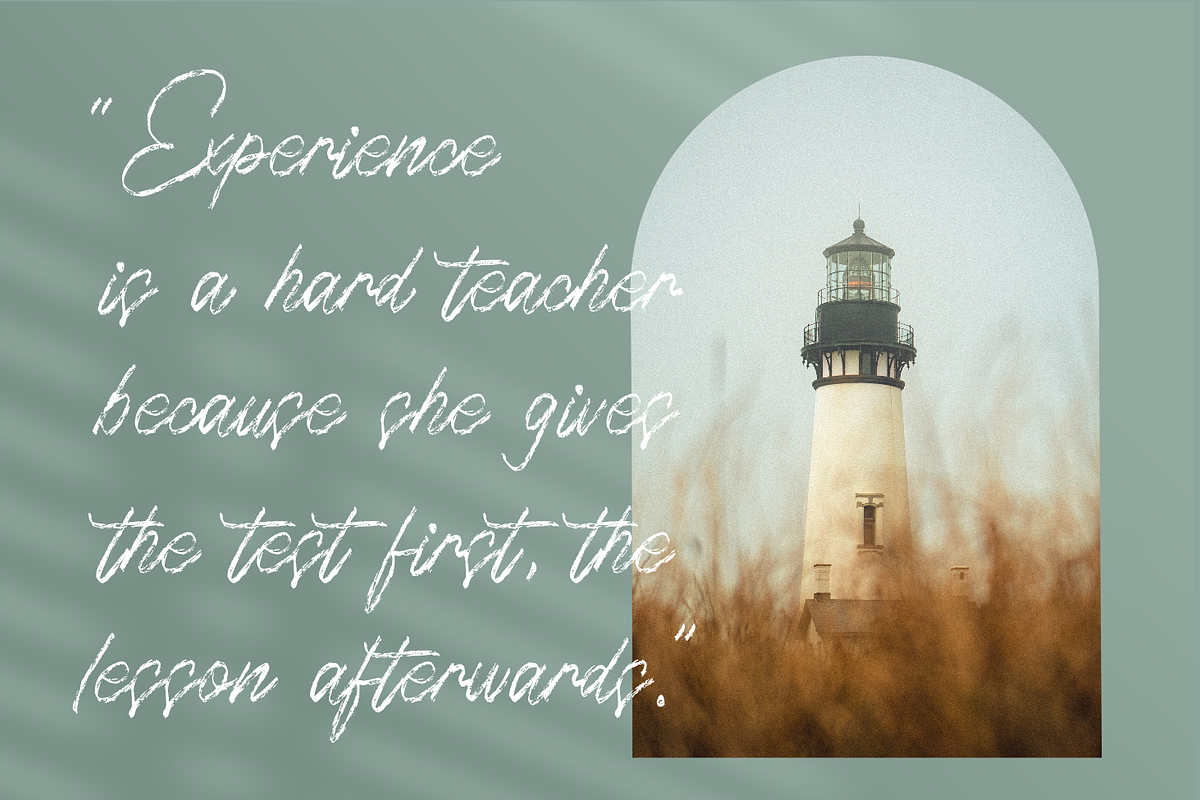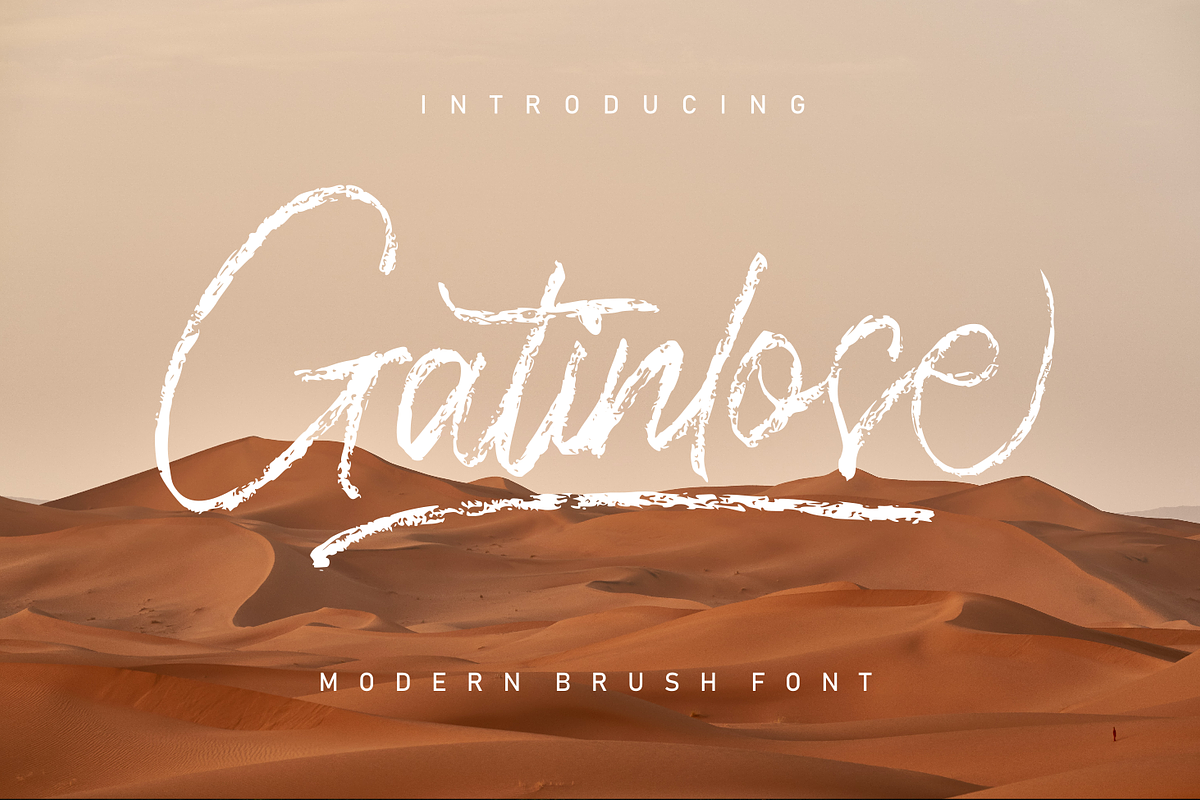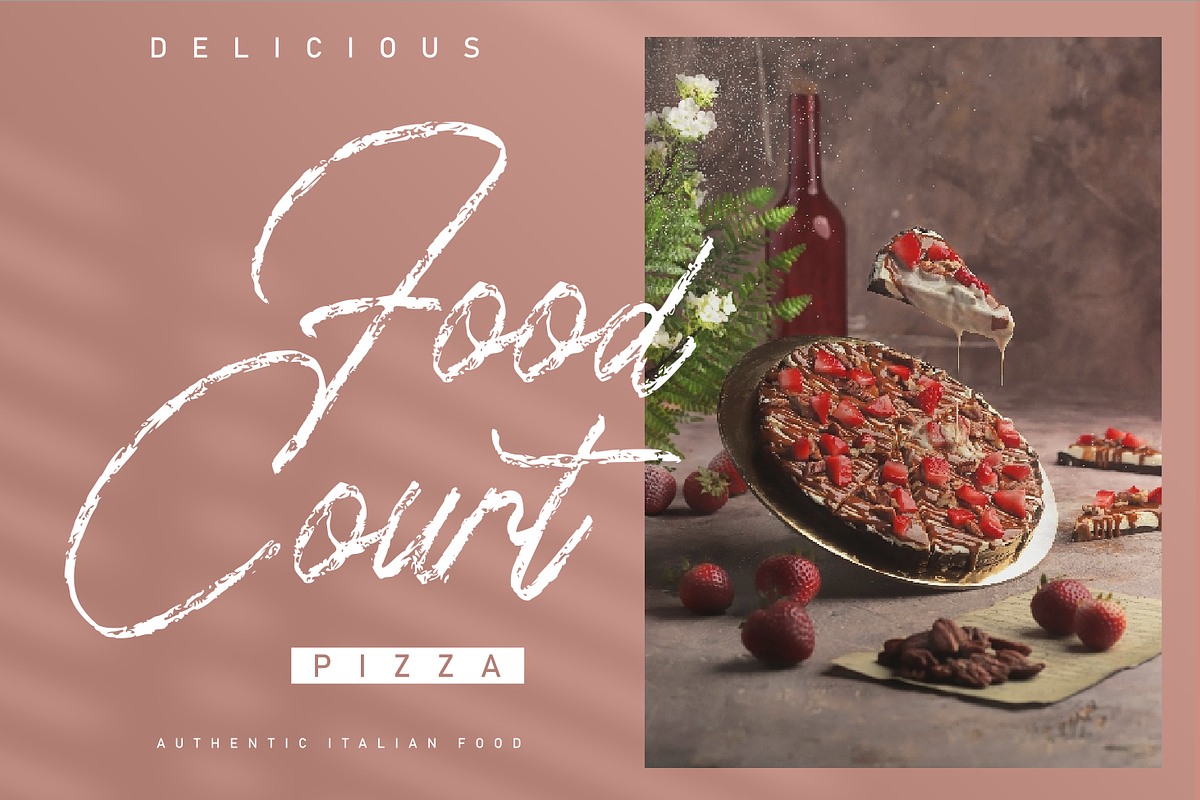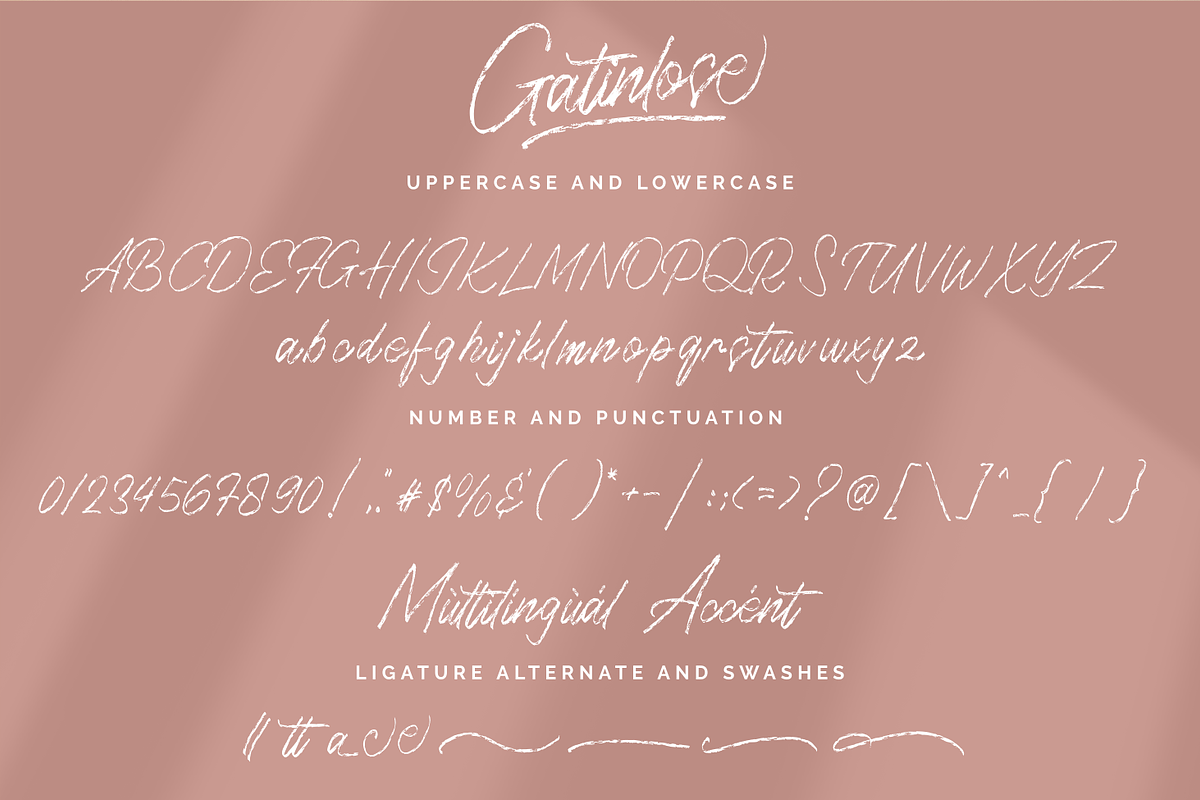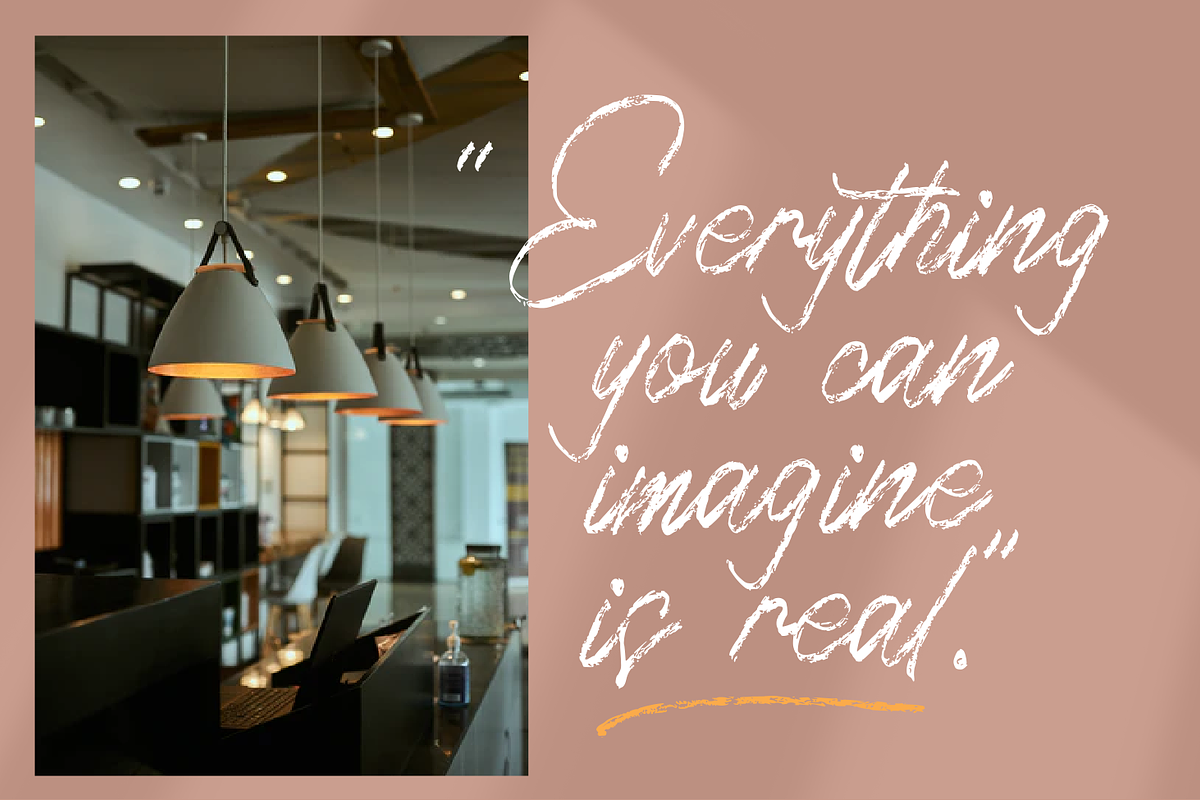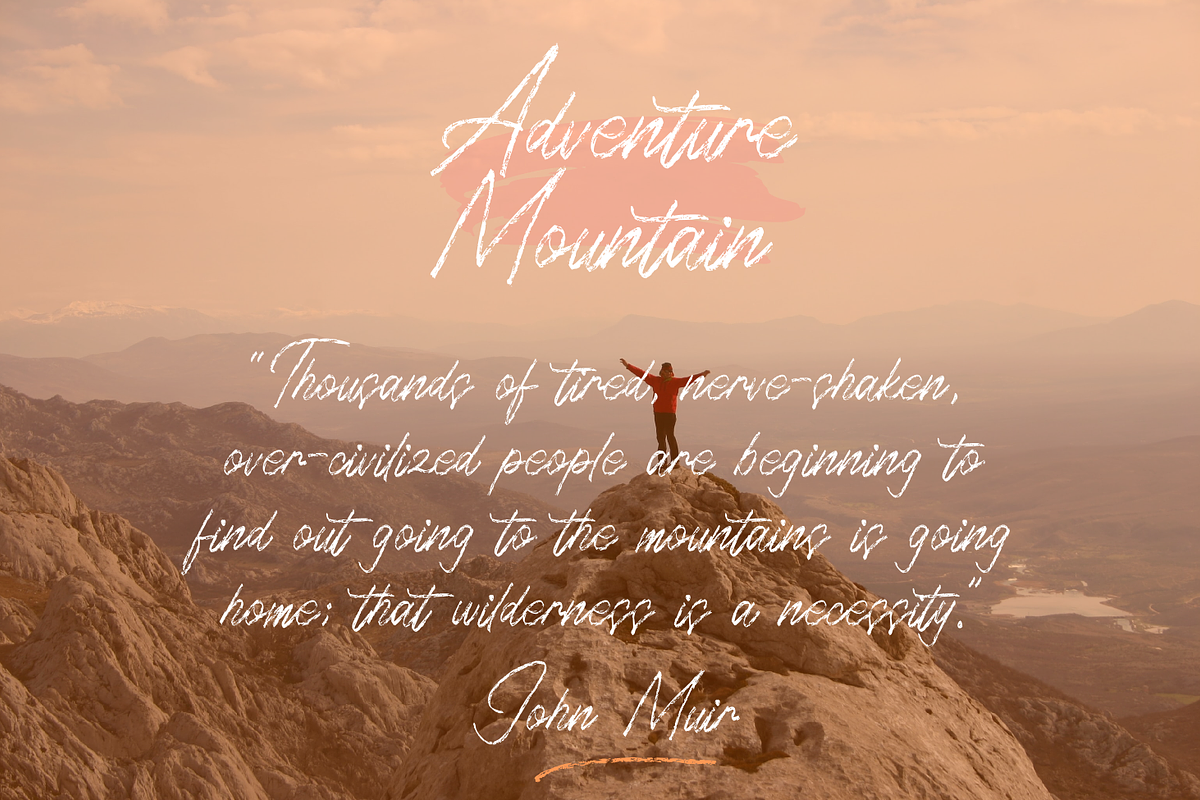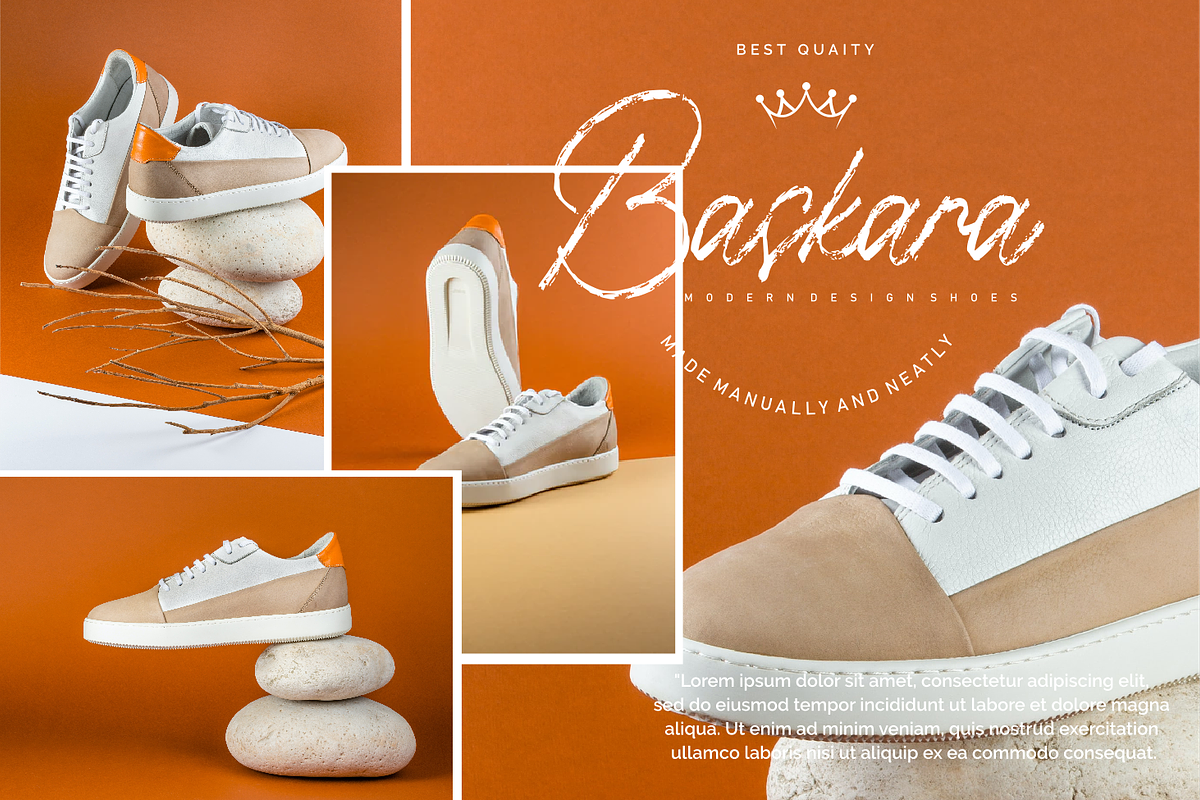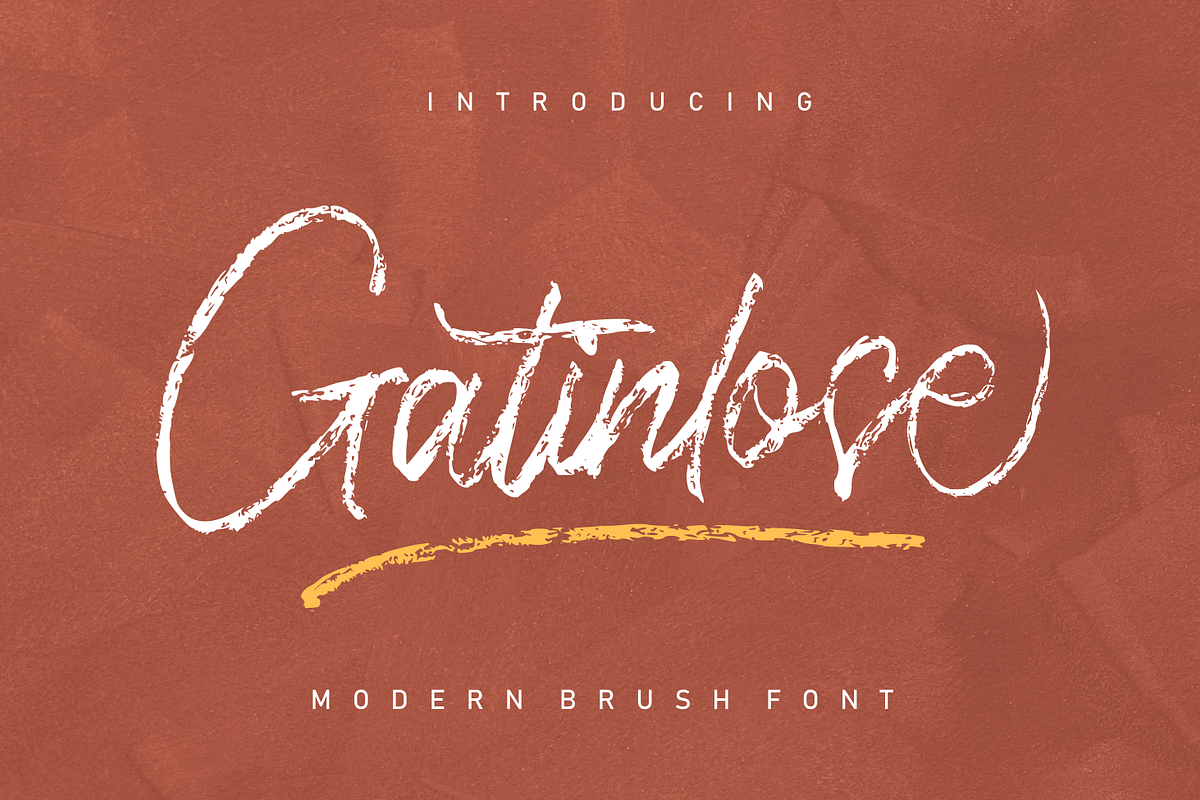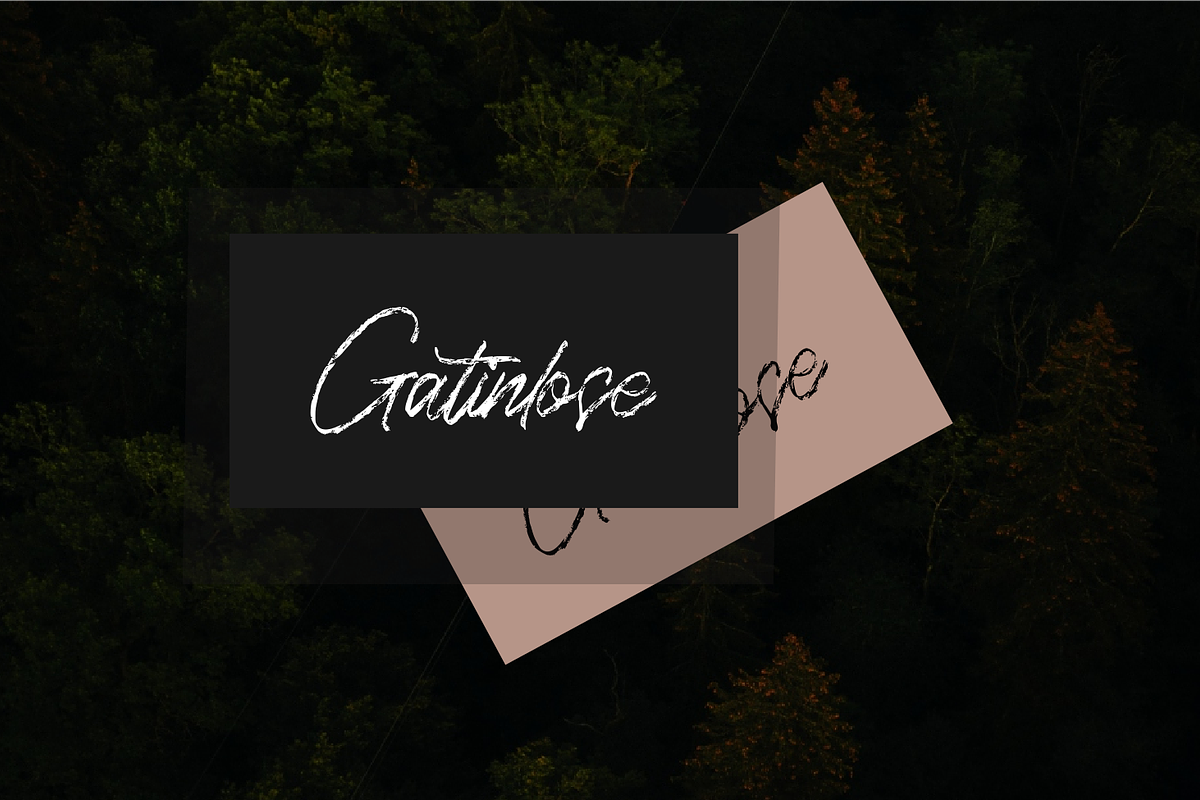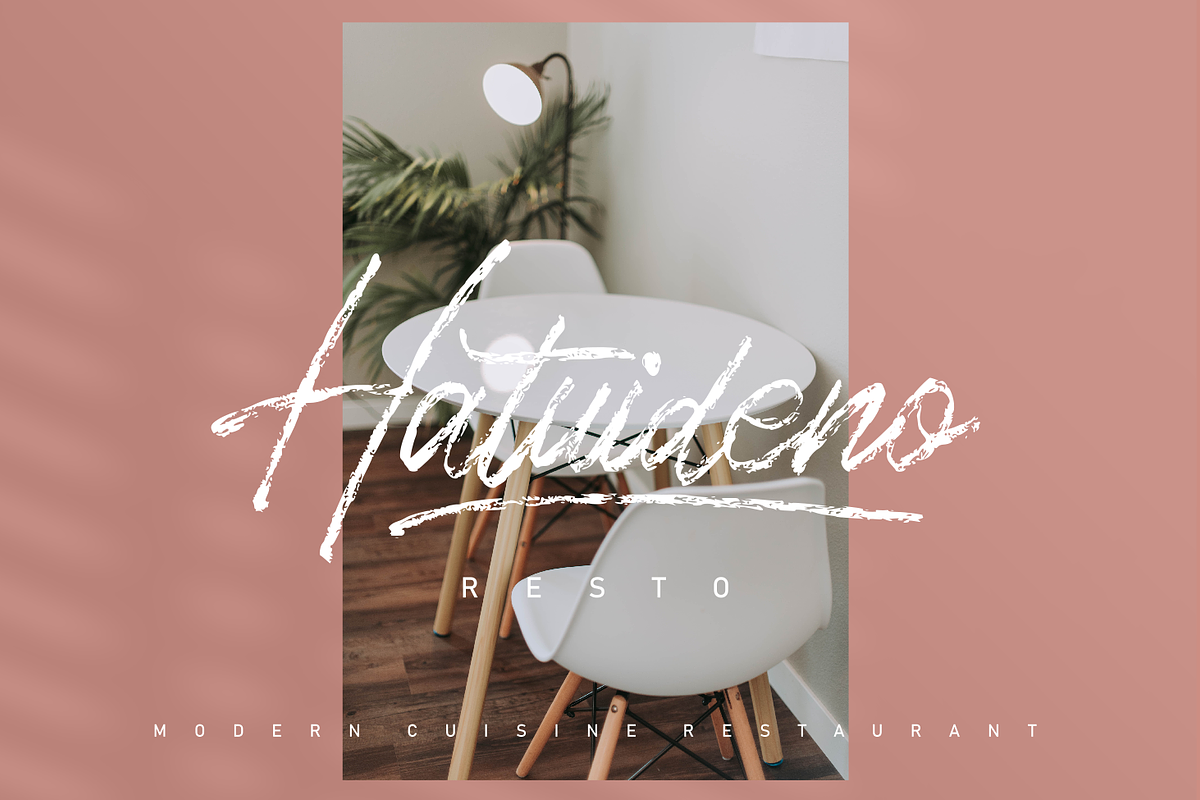
Gatinlose Modern Brush Font
Introducing our new font Gatinlose is a Handwritten font in a modern and coarse script style. This font is made with a rough brush to produce handwritten textured. Gatinlose can be used for various projects such as stationery invitations, social media, logos, weddings, branding, graphic design to support the project you want to work on.